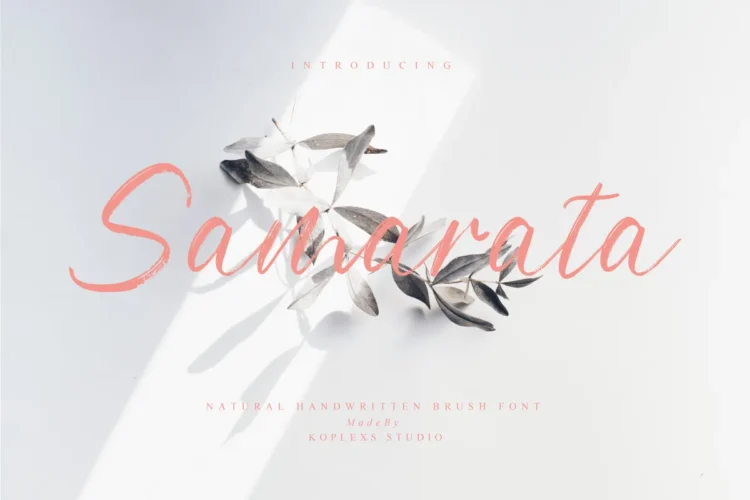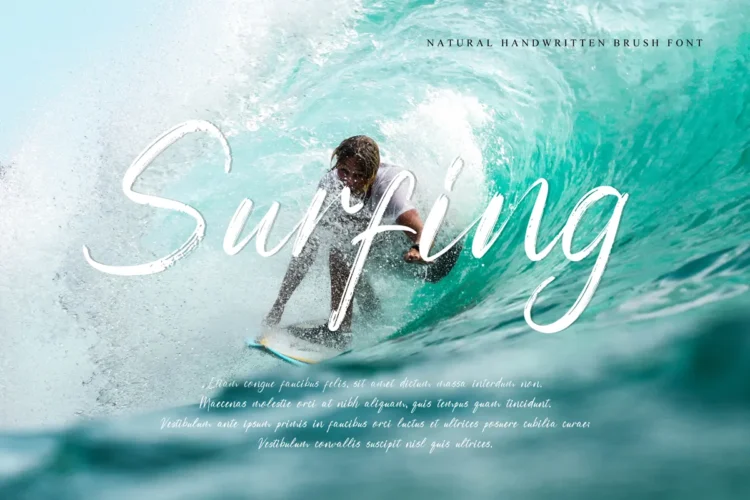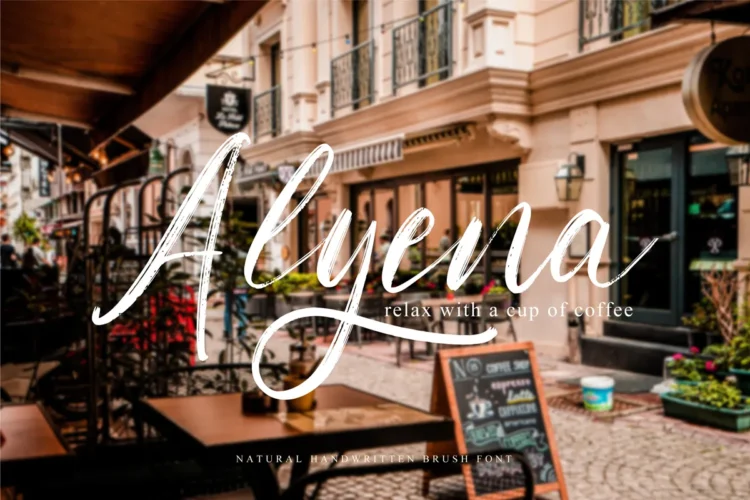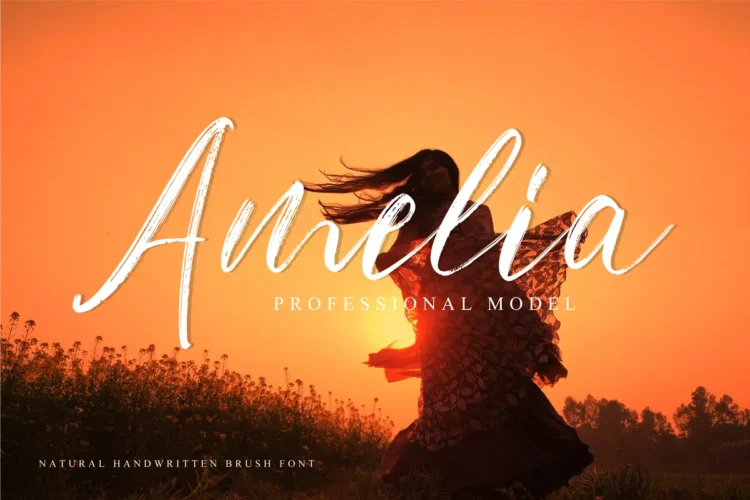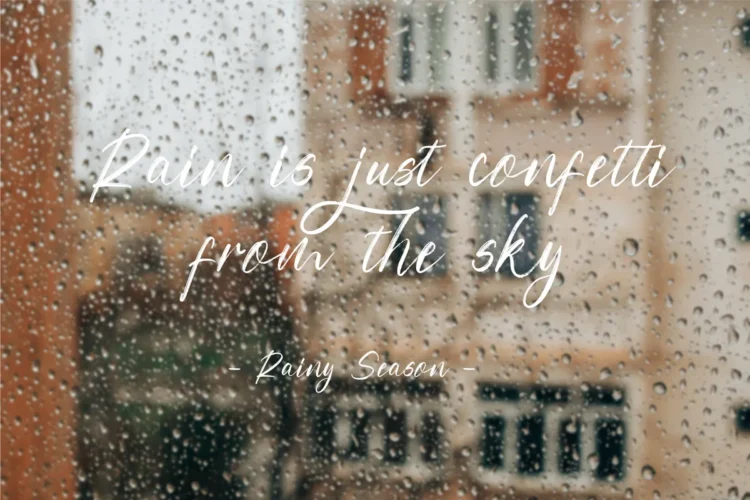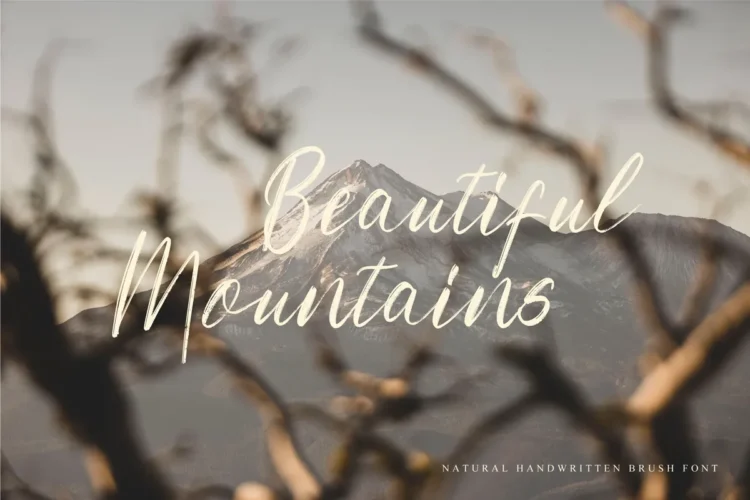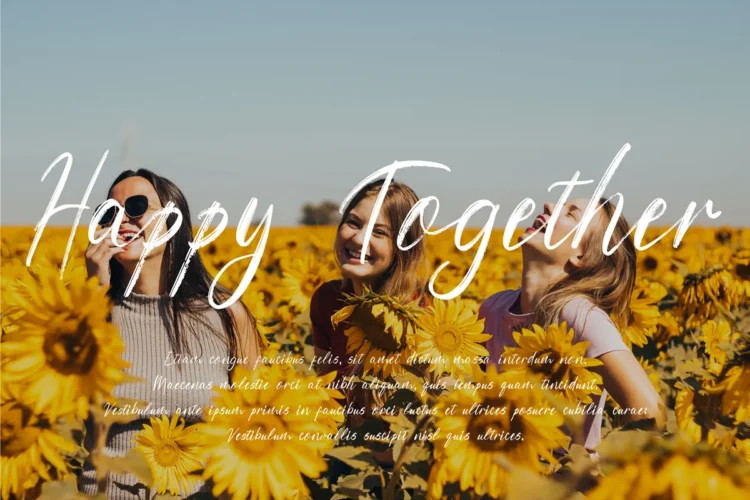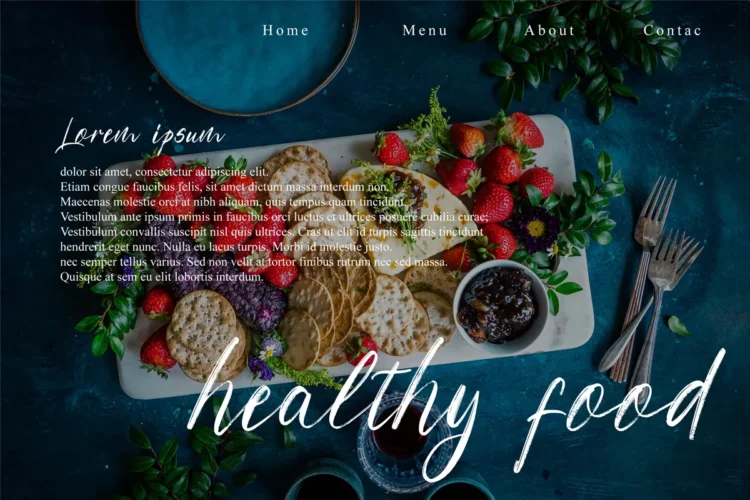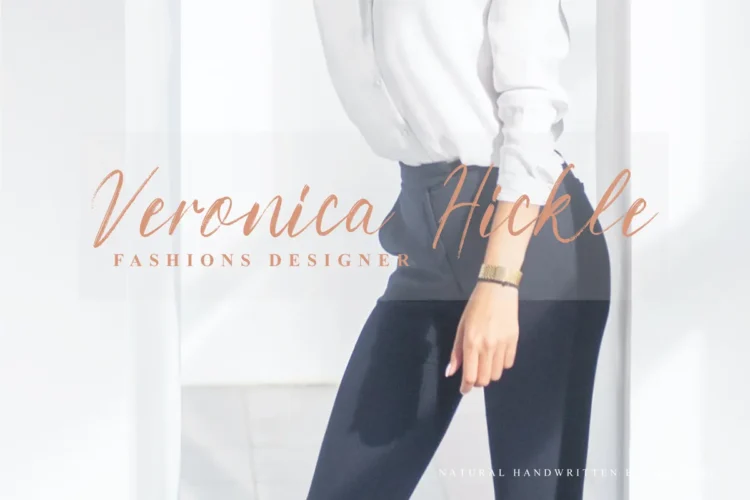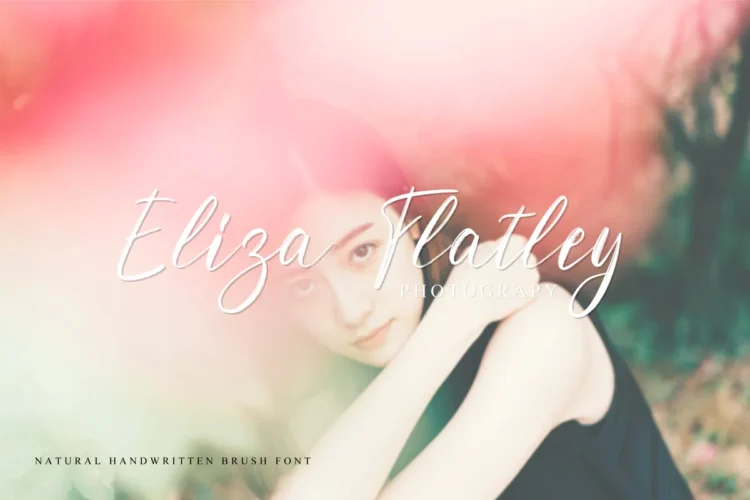
Samarata Font – Elegant Brush Script for Wedding, Branding & Luxury Designs
Discover the timeless beauty of Samarata Font, a handcrafted brush font that combines the charm of a script font with the elegance of modern calligraphy. Designed for versatility, Samarata brings a personal yet professional touch to your creative projects. Its smooth curves and natural flow make it the perfect wedding font, branding font, and handwritten font for modern designers seeking both class and creativity.
Samarata stands out as a cosmetic font with aesthetic appeal, suitable for luxury packaging, beauty products, and high-end marketing materials. Whether you need a sophisticated logo font, an elegant font for invitations, or a calligraphy font for personal projects, Samarata adapts beautifully.
With its refined style, Samarata belongs to the realm of modern fonts, offering a balance of artistry and readability that elevates your work. This luxury font is crafted for those who want their brand identity and design projects to radiate sophistication.
Samarata Font Included :
- Alternates
- Ligatures
Samarata Font Perfect for :
Samarata Font is ideal for:
Wedding suites – invitations, save-the-dates, place cards, thank-you tags
Branding & packaging – cosmetic labels, perfume boxes, skincare logos, fashion tags
Social media – Instagram quotes, Pinterest pins, TikTok thumbnails, Reels covers
Digital products – Canva templates, Procreate brushes, Etsy downloads, Cricut designs
Editorial – magazine headlines, look-book titles, blog banners, look-book covers
Stationery – notebooks, planners, thank-you cards, gift wrap, monograms
Bring elegance, personality, and luxury to your designs with Samarata Font—where artistry meets modern professionalism.